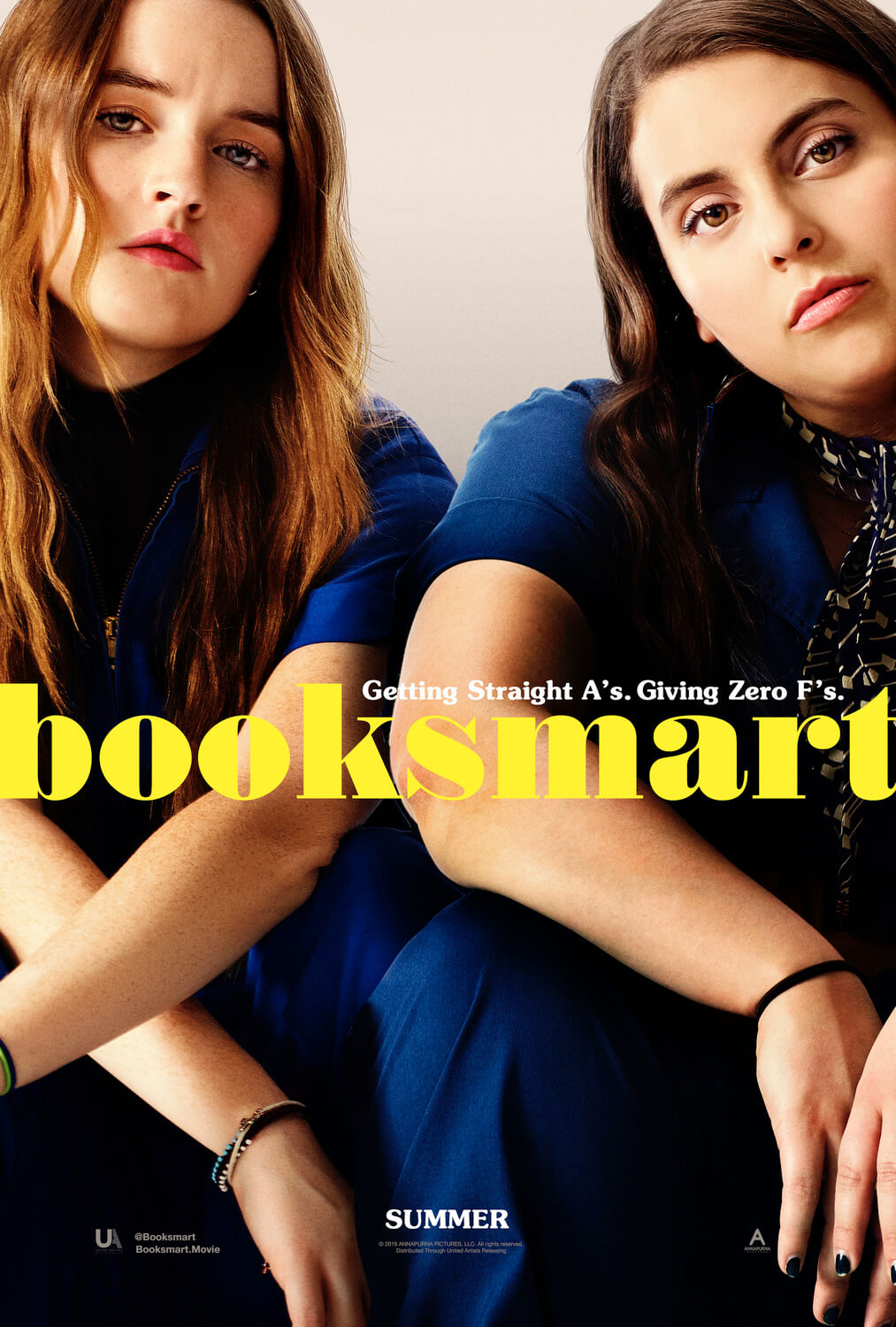
Booksmart Font
The Booksmart title on the poster is very similar to Normande designed by H. Berthold in 1860. Berthold and Haas used the term Normande for fat faces which originated with the Fette Antiqua typeface. This a commercial font and you can view more information about it here.